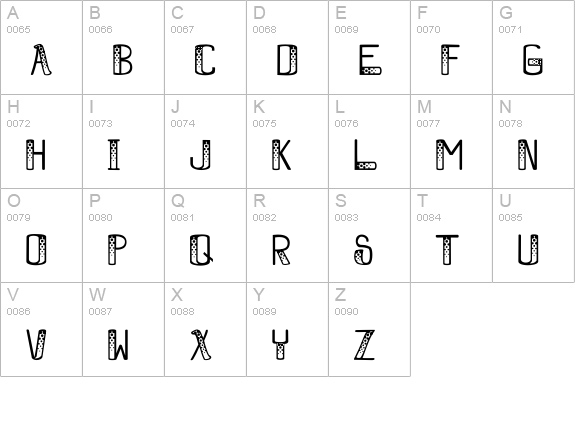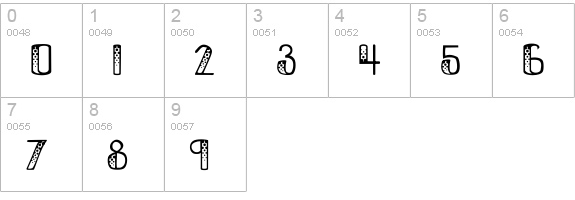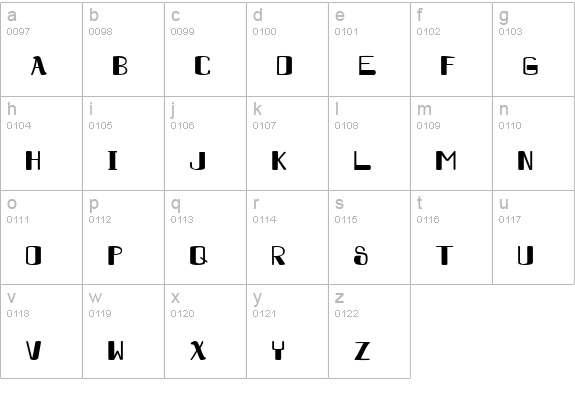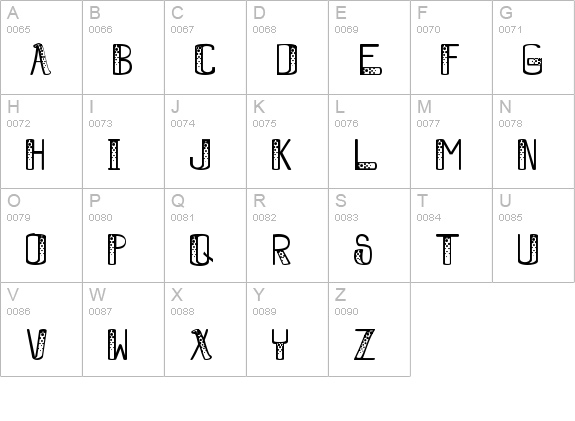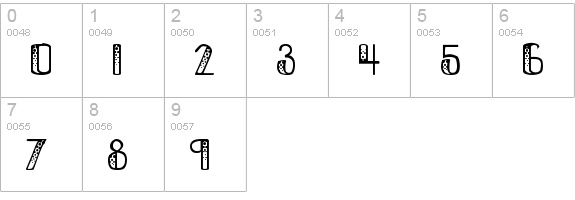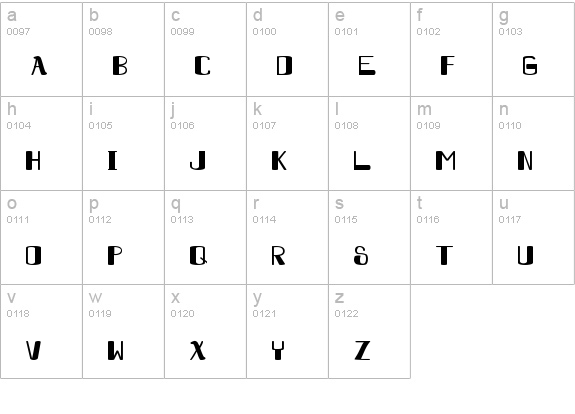
BooBooKitty Font Details
Introducing BooBooKitty font, a whimsical and charming typeface that will add a touch of playfulness to any design project. With its smooth curves and quirky details, BooBooKitty is perfect for greeting cards, invitations, posters, and more. This unique font is sure to bring a smile to your audience's face. The best part? BooBooKitty is completely free to download at FontsMarket.com. You can easily access this delightful font and start using it in your creative projects without any cost. Don't miss out on the opportunity to add BooBooKitty to your font collection today!